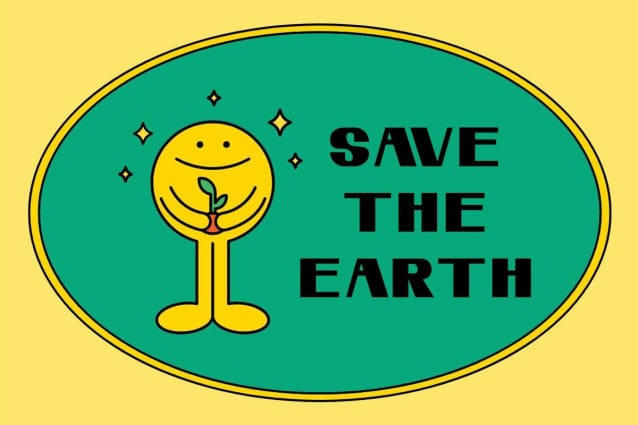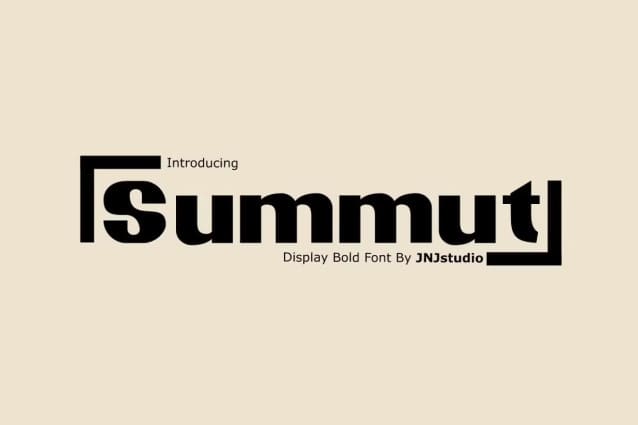
Summut Font
Summut Font is a bold, eye-catching display font designed to make a strong visual impact. With thick, geometric letterforms and sharp, clean lines, this typeface exudes confidence and modernity. The unique curves and sharp angles create a balance between elegance and assertiveness, making it perfect for headlines, posters, branding, and any design that requires a bold statement. “Summut” stands out in both digital and print formats, and its versatility makes it suitable for a wide range of creative projects. Whether you’re looking to capture attention or add a modern flair to your design, “Summut Font” delivers a striking, professional touch.